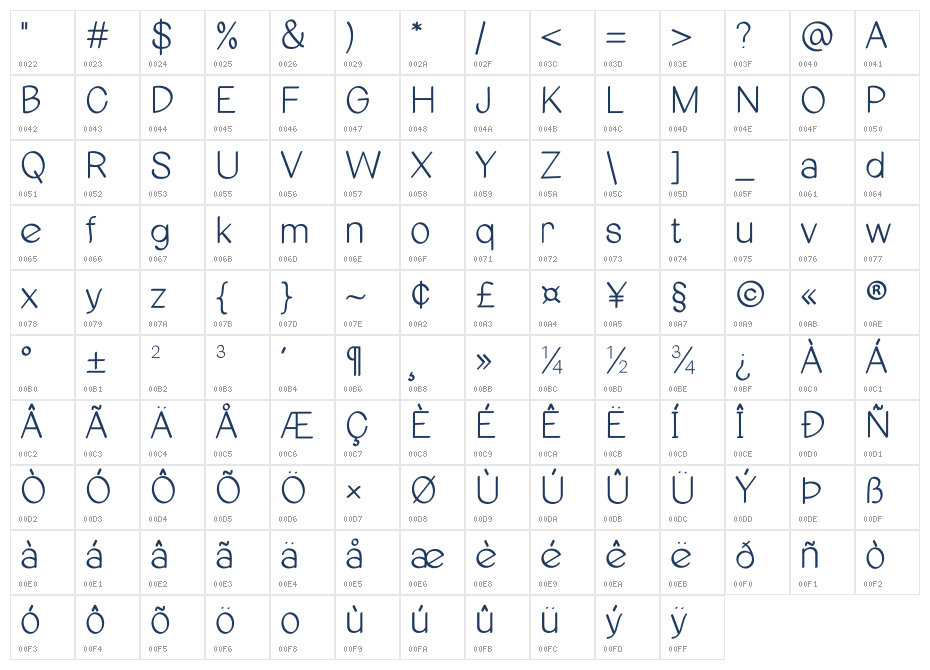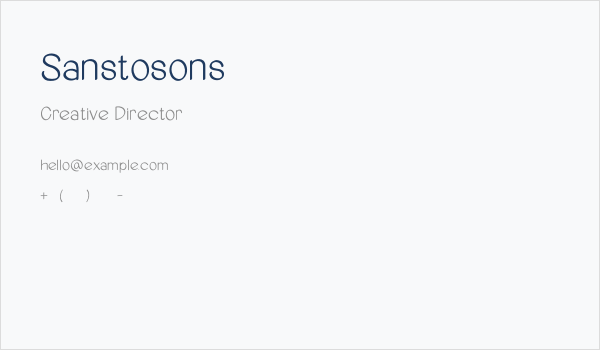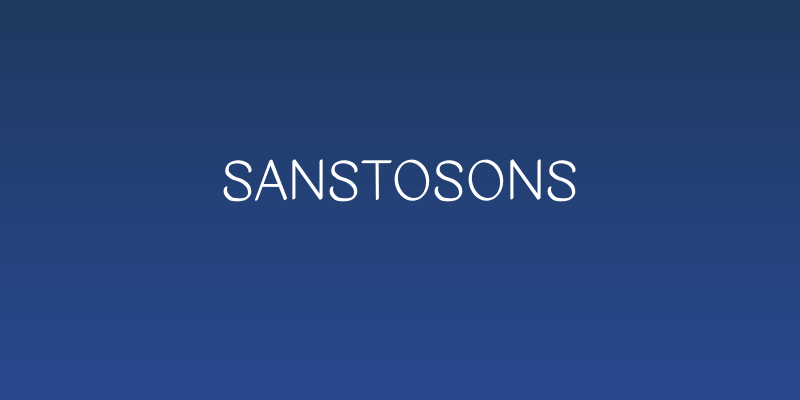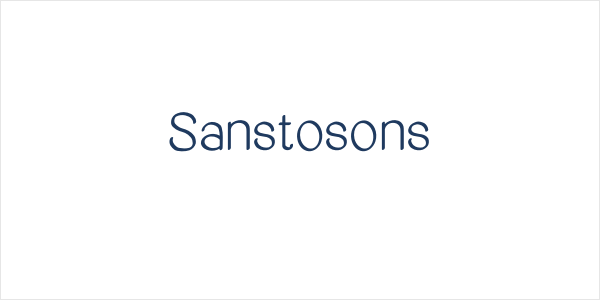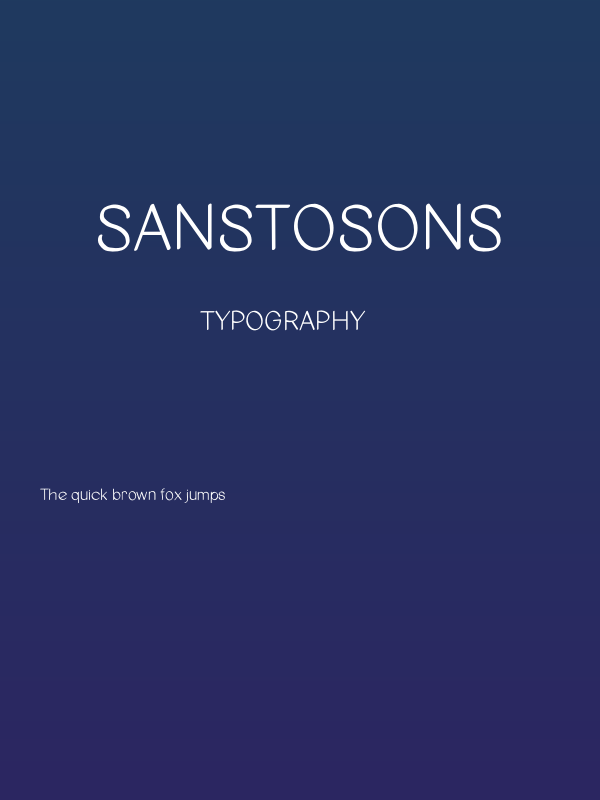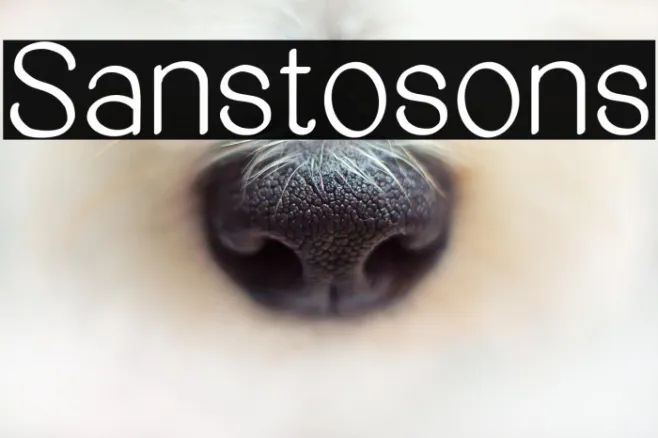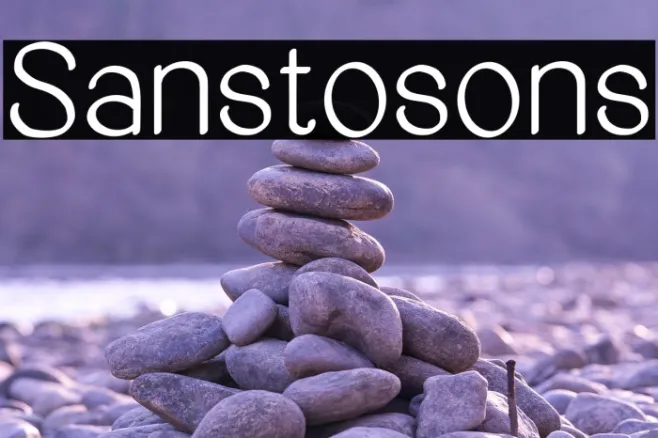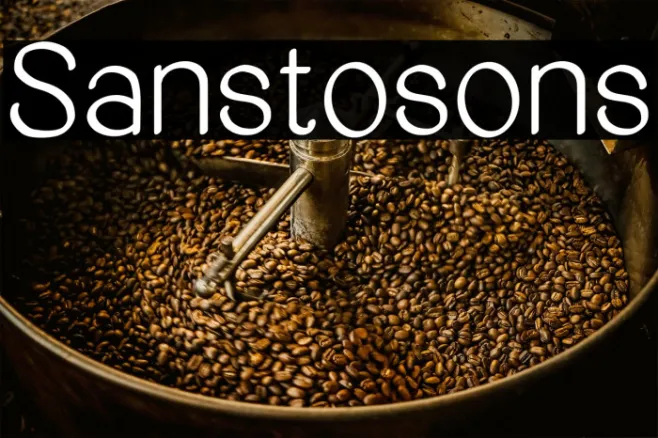
Sanstosons Font
Sanstosons Description
A clean, modern, sans-serif font with a slightly playful and informal style, featuring consistent stroke widths and a friendly appearance.
| Overall Style | Modern, Friendly, Casual |
| Author | Fonts by Alpaprana |